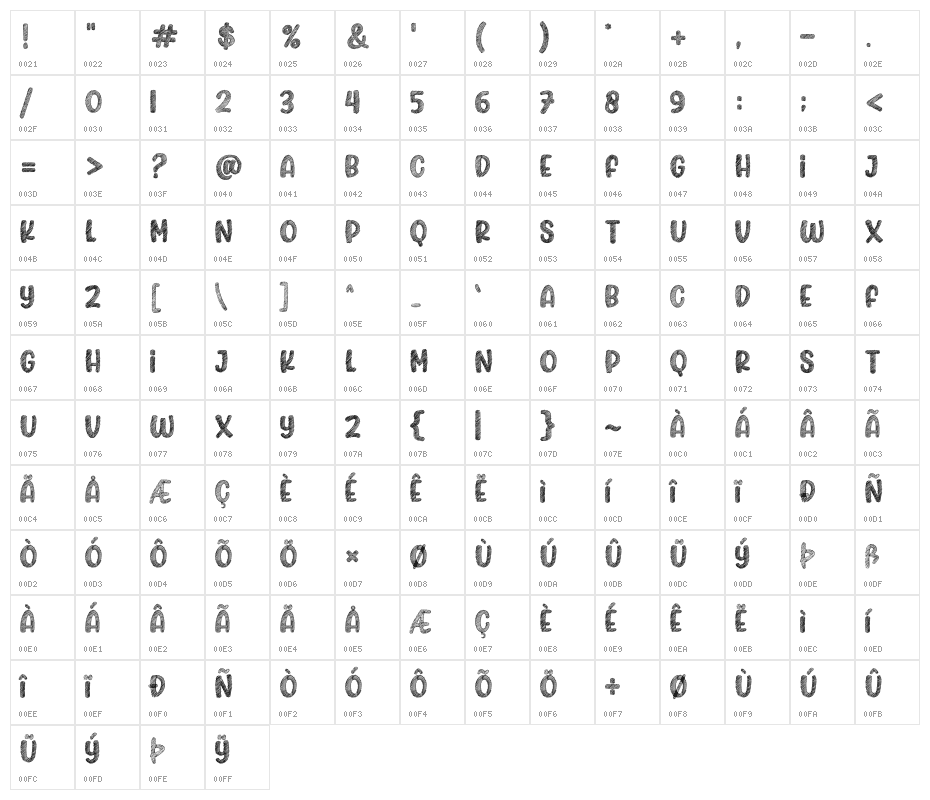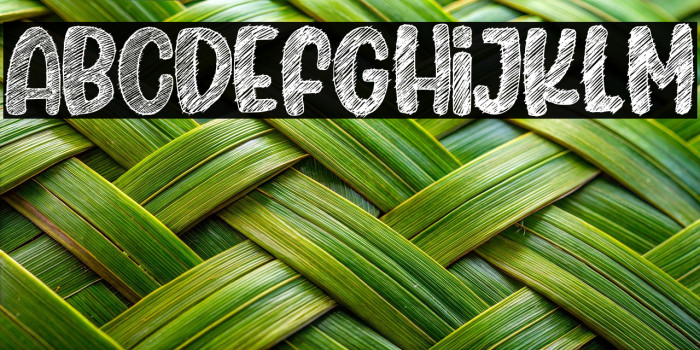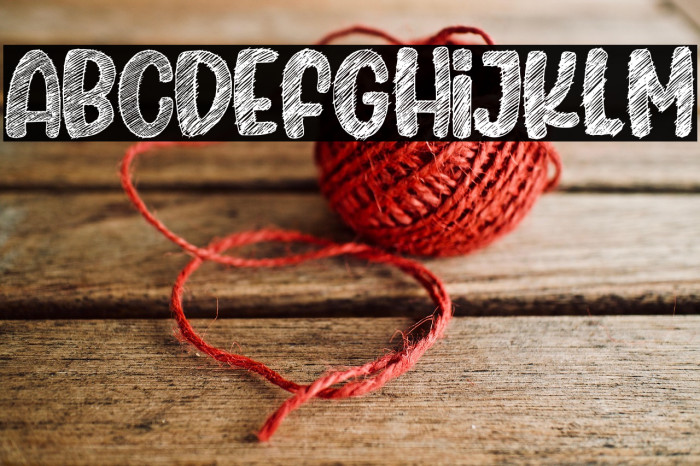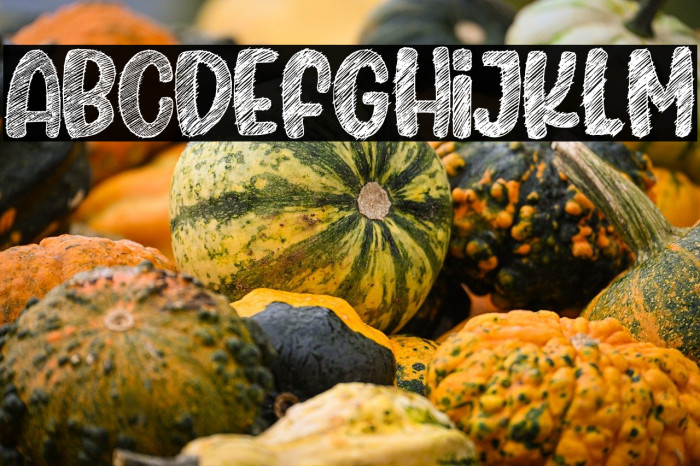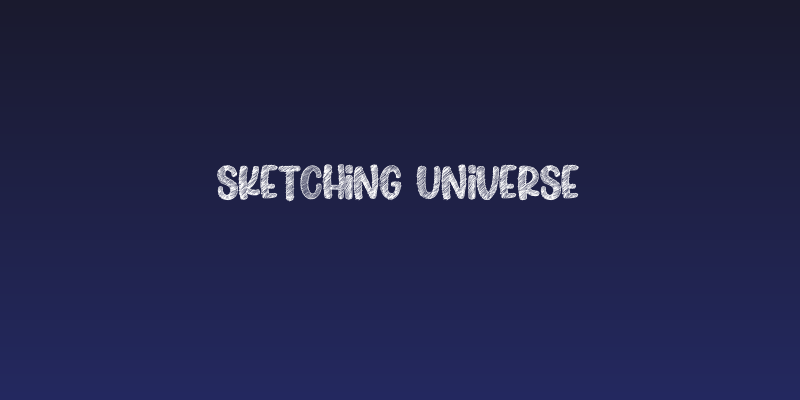
Sketching Universe Font
Sketching Universe Description
This font features a playful and artistic sketch-like appearance, reminiscent of hand-drawn illustrations. Each character is filled with a textured, cross-hatched pattern that gives it a unique, handcrafted feel. The letters are bold and rounded, with a consistent thickness throughout, creating a cohesive and visually appealing look. The font maintains a casual and informal style, making it suitable for creative projects that require a personal touch. Its distinctive texture and bold presence make it stand out, while the rounded edges add a friendly and approachable vibe.
| Proposed Projects | Ideal for children's books, comic strips, greeting cards, and creative posters. |